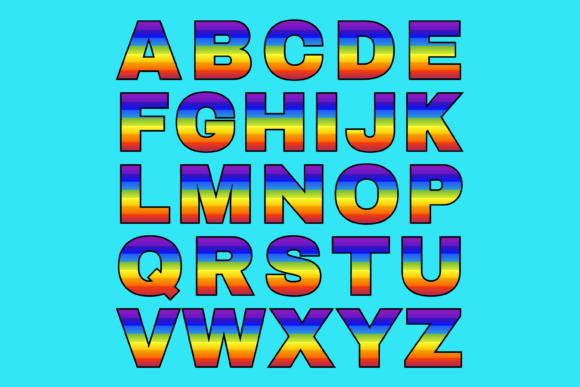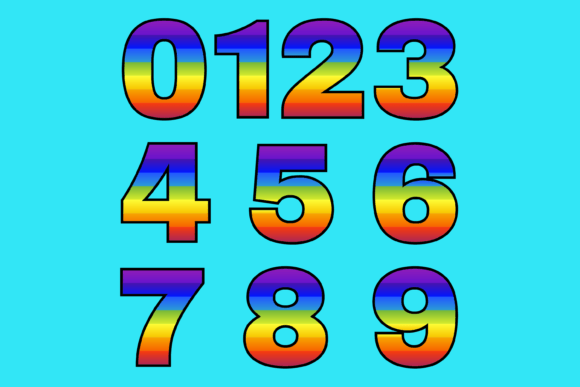
Rainbow Color Font
About Rainbow Color Font
Rainbow Color is an incredibly cool and visually captivating color font inspired by the vibrant and mesmerizing spectrum of colors. Designed to bring a lovely touch to your creations, this font is perfect for custom designs, DIY crafts, or any project that calls for a dazzling and colorful element.
This font’s standout feature is its dynamic and gradient-filled letters that resemble a beautiful rainbow. Each letter is carefully crafted to showcase a seamless transition of colors, adding a mesmerizing and eye-catching effect to your designs. Rainbow Color is designed to evoke a sense of joy, positivity, and creativity.
No matter if you’re designing posters, digital graphics, social media content, or any other creative project, Rainbow Color will infuse your designs with a sense of wonder and vibrancy. Its cool and captivating appearance adds a unique visual element that instantly grabs attention and makes a lasting impression.
Rainbow Color is a color font that allows you to fully utilize its gradient-filled letters and create stunning compositions. Its versatility makes it suitable for various applications and design tools. Whether you’re a professional designer or an enthusiast, Rainbow Color offers endless possibilities for adding a delightful and colorful touch to your creations.
Embrace the coolness and beauty of Rainbow Color to enhance your creative projects. Let its spectrum-inspired design bring life to your designs and create a captivating visual experience. Whether you’re creating custom designs, engaging in DIY crafts, or any other creative endeavor, Rainbow Color is an excellent choice for adding a lovely and dazzling touch to your creations.